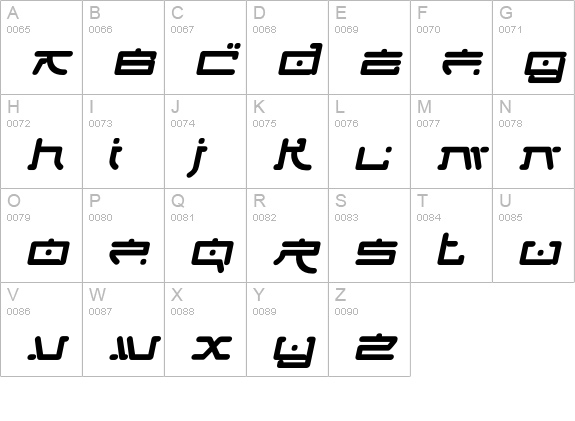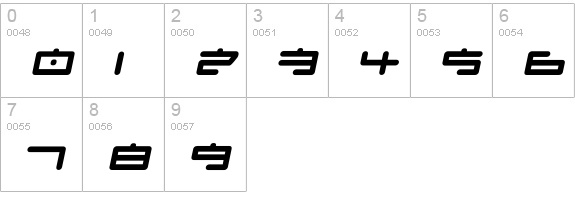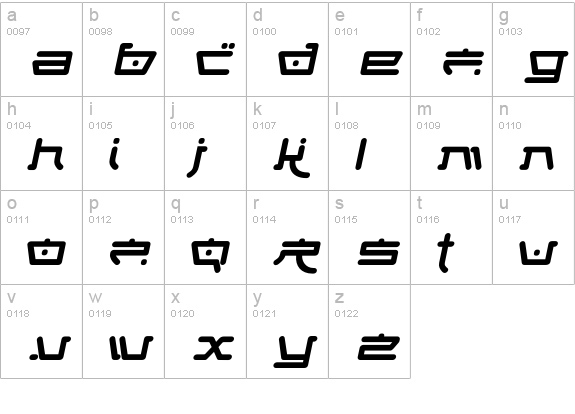
FungFoo-Italic Font Details
FungFoo-Italic is a distinctive, italic variant in the FungFoo typeface family \xE2\x80\x94 well suited to design and typography projects.
FungFoo-Italic is a sleek and stylish font that exudes elegance and sophistication. With its unique italicized design, this font is perfect for adding a touch of class to your projects. The delicate curves and graceful angles of FungFoo-Italic make it a versatile choice for a wide range of design applications, from branding to editorial design. Best of all, FungFoo-Italic is available for free download at FontsMarket.com. This means you can easily add this stunning font to your collection without breaking the bank. Don't miss out on the opportunity to enhance your designs with the beauty and charm of FungFoo-Italic – download it today and see the difference it can make!